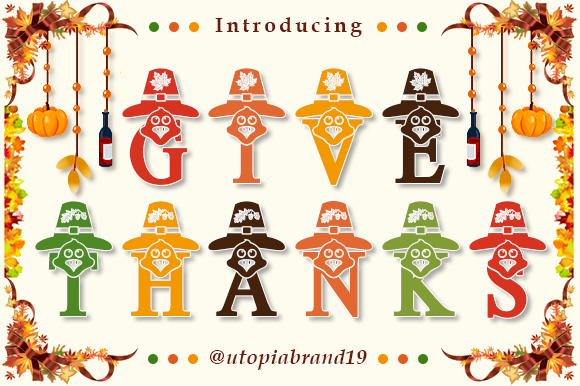
Dive into the whimsical world of Give Thanks Monogram, a decorative font family that will transform your creative projects into stunning masterpieces. Designed with meticulous attention to detail by the talented utopiabrand19, this font exudes a charming and sophisticated style that's perfect for a wide range of designs, from elegant wedding invitations and eye-catching social media posts to heartwarming stationary art and enchanting Christmas designs.
As a decorative font, Give Thanks Monogram possesses a captivating and enchanting personality that sets it apart from the ordinary. Its intricate lines and graceful curves dance across the page, creating a visual feast that captivates and inspires. Whether you're a seasoned designer or just starting your creative journey, this font is sure to add a touch of magic to your work.
With Give Thanks Monogram, you can effortlessly create designs that resonate with your audience and leave a lasting impression. Its versatility and charm make it a perfect choice for adding a personal touch to your projects, whether you're crafting heartfelt messages, designing stunning logos, or creating whimsical illustrations.